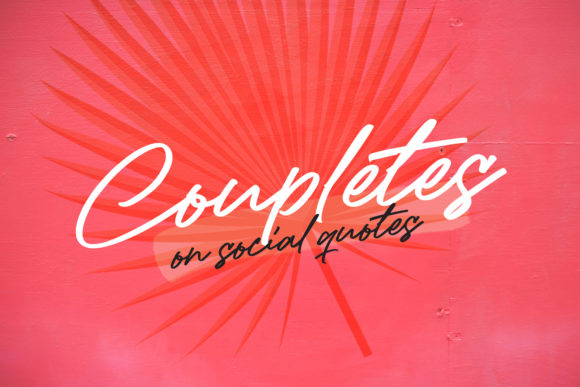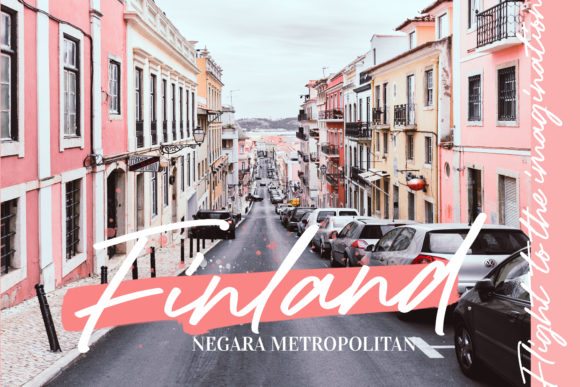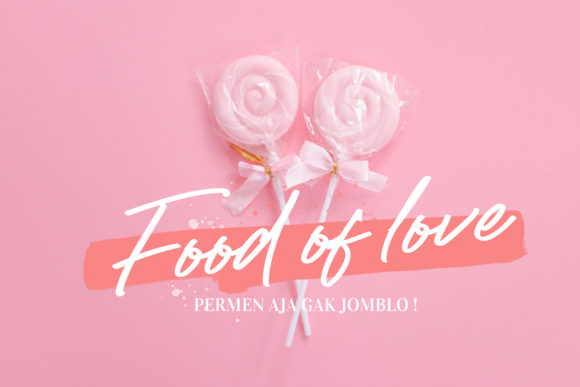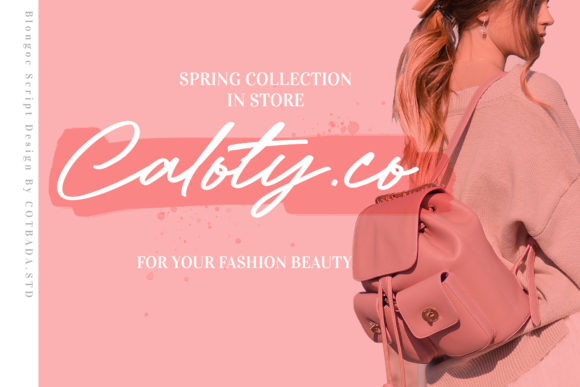
Introducing the Blongoc Script Font: Elevate Your Designs with a Unique and Modern Handwritten Style
In the world of typography, a good font can make all the difference in the success of a design project. Whether you’re a seasoned designer or a crafty DIY enthusiast, finding the perfect font to convey your message and capture your audience’s attention can be a daunting task. That’s where the Blongoc Script Font comes in – a unique, cool, and modern handwritten font that’s perfect for a wide range of design applications.
What Makes Blongoc Script Font So Special?
The Blongoc Script Font is a one-of-a-kind, handwritten font that boasts a distinctive and stylish look. Its modern design makes it an excellent choice for designers and crafters looking to add a touch of personality to their work. With its fluid strokes and elegant letterforms, Blongoc is sure to make your designs stand out from the crowd.
The versatility of the Blongoc Script Font makes it an excellent choice for a wide range of design projects. Here are just a few ideas to get you started:
- Logos: Create a memorable and impactful logo for your business or brand with Blongoc’s unique and stylish script.
- Labels and Packaging: Add a touch of elegance and sophistication to your product labels and packaging designs with Blongoc’s beautiful, handwritten letterforms.
- Blog Headlines: Elevate your blog posts with eye-catching headlines that showcase your personality and style.
- Posters: Create stunning posters that grab attention and leave a lasting impression with Blongoc’s bold and modern script.
Why Choose Blongoc Script Font?
So, what sets Blongoc apart from other fonts on the market? Here are just a few reasons why designers and crafters love working with Blongoc:
- Unique and Memorable: Blongoc’s distinctive script makes it easy to create designs that stand out and leave a lasting impression.
- Modern and Fresh: Blongoc’s modern design ensures that your designs look fresh and up-to-date, even in a crowded marketplace.
- Easy to Read: Despite its stylish and artistic nature, Blongoc is surprisingly easy to read, making it perfect for body text and headlines alike.
- Highly Versatile: Blongoc can be used for a wide range of design projects, from logos and labels to posters and blog headlines.
Tips for Using Blongoc Script Font
To get the most out of Blongoc, here are a few tips to keep in mind:
- Use it Sparingly: Blongoc’s bold and stylish script is best used sparingly, as a headline or title font, to really make an impact.
- Experiment with Colors: Blongoc looks great in a variety of colors, so don’t be afraid to experiment and find the perfect hue to match your brand or design.
- Pair it with Other Fonts: Blongoc pairs well with a range of other fonts, so feel free to get creative and experiment with different combinations.
| Font Name | Blongoc Script Font |
| Author | Cotbada Studio |
In conclusion, the Blongoc Script Font is a unique, cool, and modern handwritten font that’s perfect for designers and crafters looking to elevate their designs. With its stylish and artistic script, Blongoc is sure to make your designs stand out and leave a lasting impression. Whether you’re creating logos, labels, packaging designs, blog headlines, or posters, Blongoc is an excellent choice. So why wait? Download Blongoc today and start creating stunning designs that showcase your personality and style!